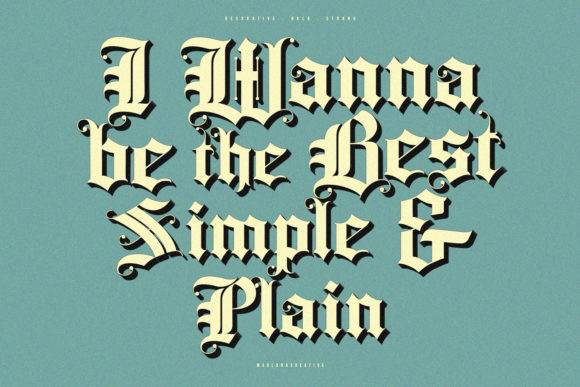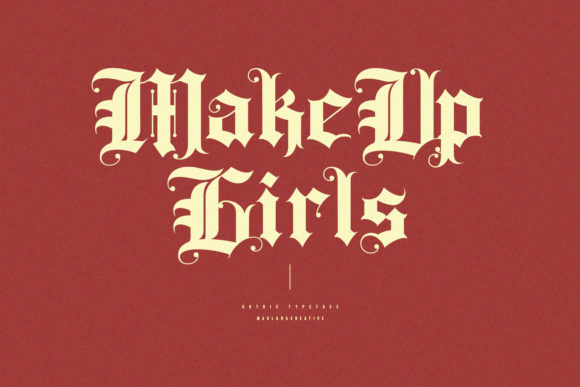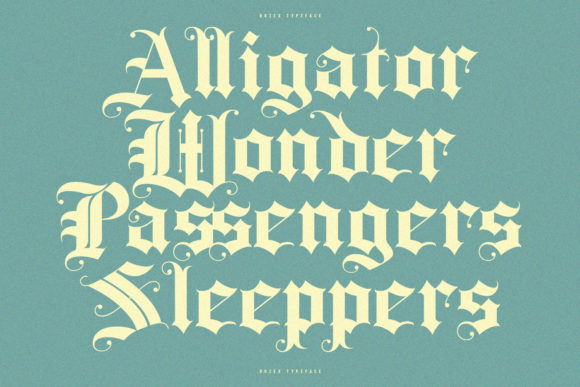
Introduction to Rozex Font
As designers, we’ve all been there – staring at a blank canvas, waiting for inspiration to strike. For me, it’s often the simplest elements that spark the most creativity. A well-placed font, a subtle color palette, or a beautiful texture can elevate a design from bland to grand. And that’s exactly what the Rozex Font does – it distills elegance into a single, stunning blackletter font that’s sure to elevate any design project to new heights.
Whether you’re working on a branding project, crafting a wedding invitation, or creating a logo, the Rozex Font is an invaluable resource that’s sure to make your designs stand out. With its high-quality design and versatility, it’s the perfect addition to any designer’s toolkit.
Key Features of Rozex Font
- High-quality design resource ideal for creative projects, including graphic design, digital art, and typography.
- Unique, modern design with a transparent background, allowing for easy customization and layering in creative projects.
- Designed to be highly legible and versatile, making it suitable for a wide range of creative projects, from branding and marketing materials to digital art and publications.
Honest Review: Rozex Font
I recently had the chance to work with the Rozex Font on a creative project and I must say it’s a great addition to any design resource. The clean and modern design of this font makes it perfect for a variety of applications.
One of the things that works well with Rozex Font is its high quality design, which is evident even at larger font sizes. The font is also highly customizable, making it easy to use in a variety of creative projects.
Some of the key features that I found particularly useful include:
- Transparent background, making it easy to place over images or other backgrounds
- High quality design, perfect for print and digital applications
However, I did notice a few limitations to the Rozex Font ⚠️:
- Limited font weights, which may not be suitable for all projects
- No italics or bold versions, which can be a limitation in certain situations
Overall, I was impressed with the Rozex Font and would definitely recommend it as a design resource. With a little creativity, it can be used in a variety of projects and is sure to make a great impression. ✨
Tips for Getting the Most Out of Rozex Font
Use the Rozex Font in a creative project to add a touch of sophistication and elegance. Experiment with different font sizes and colors to create a unique look. Remember to save your design with a transparent background for the best results.
The Rozex Font is ideal for use in brochures, business cards, and other marketing materials. It is also a great choice for use in presentations and reports, adding a touch of professionalism and style to your design.